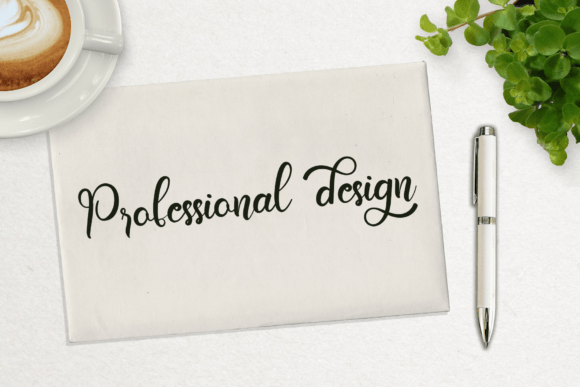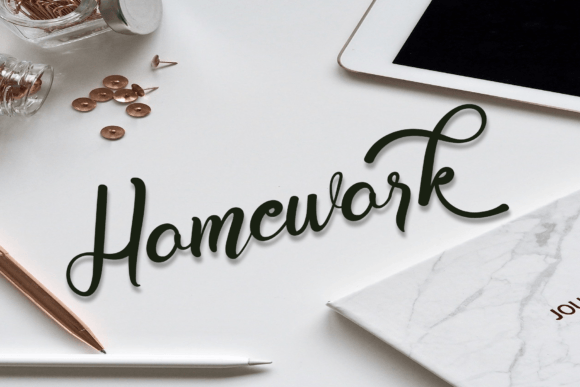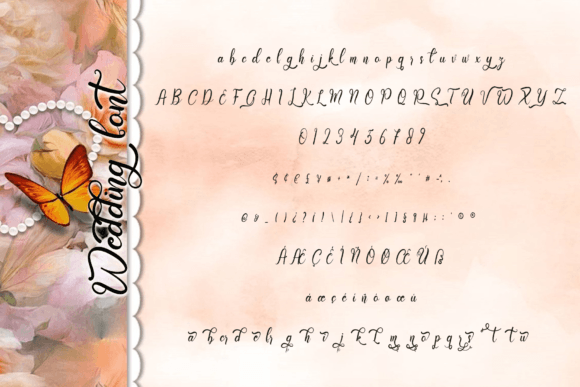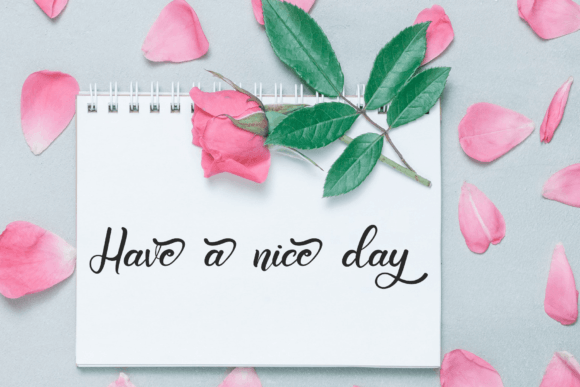
Introduction to Morrita Font
Morrita is a stylish handwritten font with a contemporary atmosphere and impeccable form, inspired by timeless classic calligraphy.
Not too thin and not too thick, balanced and varied, this font was carefully crafted to enhance the beauty of your projects Add it to any of your designs and make them extraordinary.